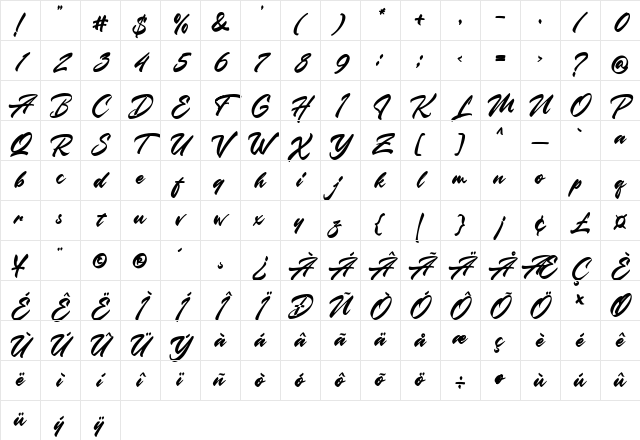
Complete Magic Frankie Regular glyph index. Displaying only characters natively supported by Magic Frankie Regular font.
Magic Frankie is a composed and adaptable typeface that performs quietly and consistently across a wide range of design contexts.